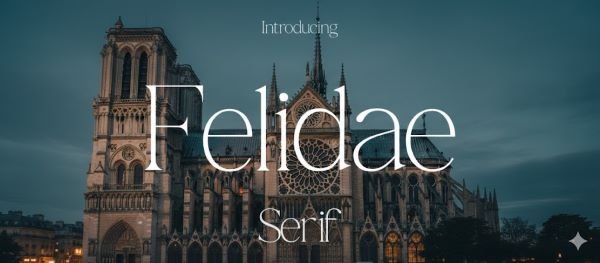
Felidae Font
Felidae Font, named after the Latin word for “feline,” is an exquisite serif typeface designed by Daria Kazakova that seamlessly merges Italian Renaissance elegance with modern sophistication. This beautiful font features unique, eye-catching symbols inspired by the majestic, flowing shape of a lion’s mane in motion. With its refined and sophisticated appearance, Felidae Font brings timeless grace to any design project requiring classical beauty combined with contemporary flair and distinctive character.